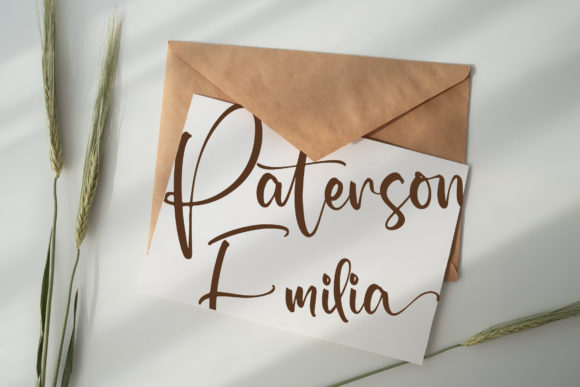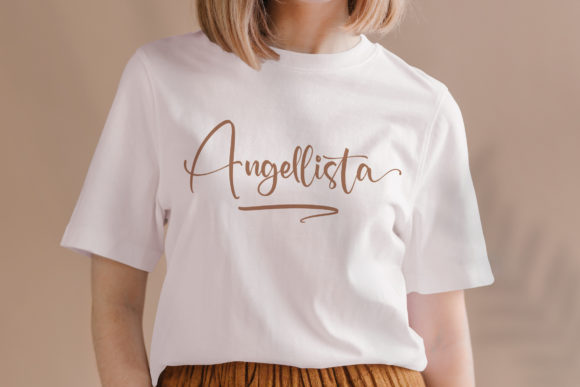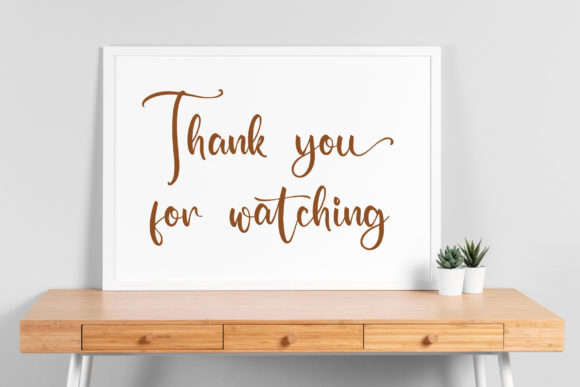
Angellista Font
About Angellista Font
Angellista is a distinct graceful script font. Fall for its ravishing style and use it to create gorgeous designs. This font is PUA encoded which means you can access all glyphs and swashes with ease!